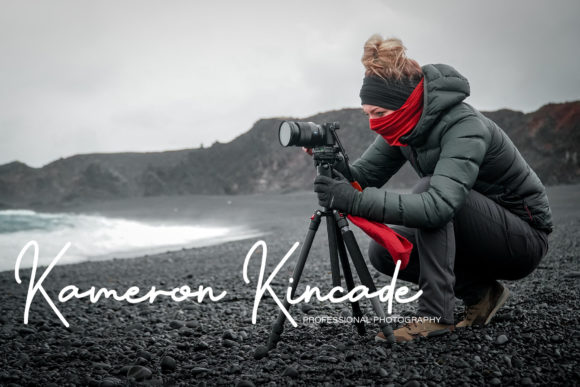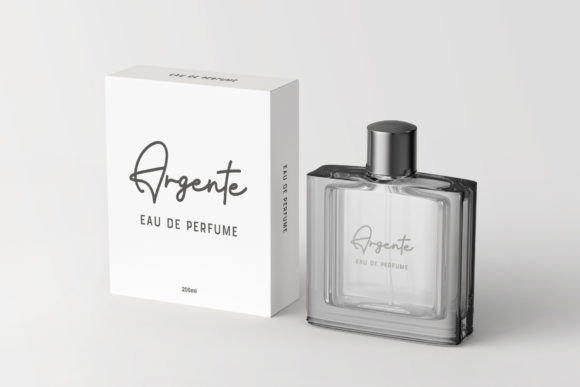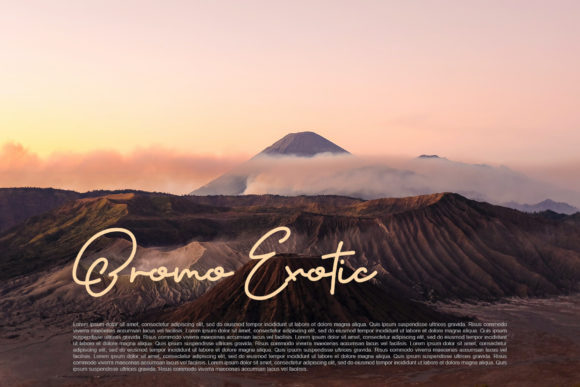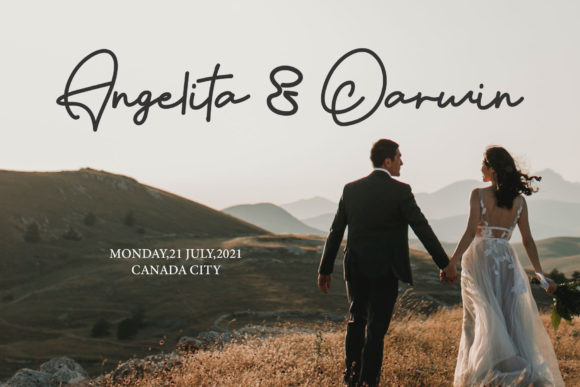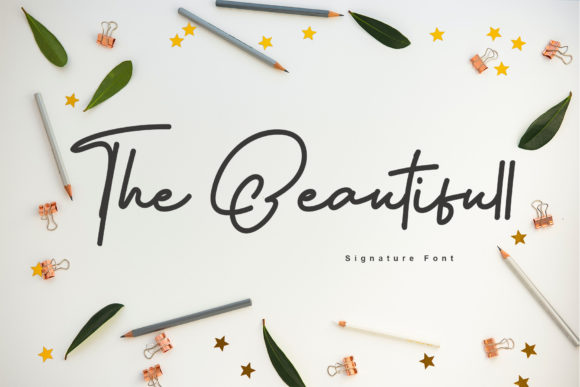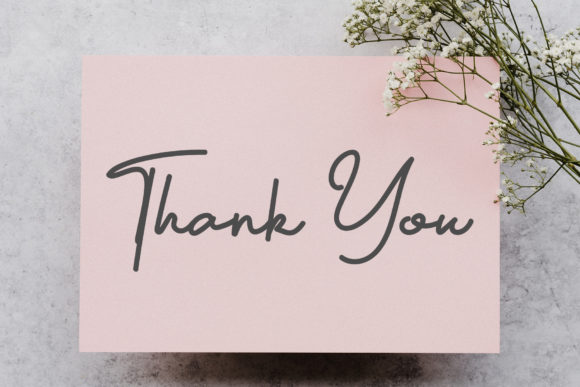
The Perfect Match for Your Next Design Project
Have you ever sat down with a blank canvas, feeling the creative juices flow, and suddenly, the perfect font appears in your mind? For many designers, this moment is what drives them to create something truly special. And, for those who’ve experienced it, they know that the right font can make all the difference.
Meet Bridetown Font, a sweet and friendly handwritten font that’s sure to capture the hearts of your audience. With its natural and unique style, Bridetown Font is incredibly versatile and fitting for a wide range of designs. Whether you’re working on a wedding invitation, a children’s book, or a social media campaign, this font is sure to bring a personal touch to your projects.
What makes Bridetown Font truly valuable for designers is its ease of use. With PUA encoding, you can access all of the glyphs and swashes with ease, giving you the freedom to experiment and push the boundaries of your creativity.
Bridetown Font Key Features
- Unique Characteristics: Distinctive, hand-drawn feel with a touch of elegance and sophistication
- Kerning and Glyphs: Advanced kerning and a comprehensive set of glyphs, including ligatures and swashes
Bridetown Font Review
Overall, I think the Bridetown Font is a solid choice for designers looking for a friendly, approachable font. ✨ It’s perfect for projects that require a warm and inviting tone, such as wedding invitations, children’s books, or restaurant menus.
The Bridetown Font has a lot of great features, including:
- ✨ Friendly and approachable feel
- ✨ Wide range of weights and styles
- ✨ Supports most languages
- ✨ Works well for body text and headlines
- ⚠️ Not ideal for formal or professional projects
- ⚠️ May not be suitable for small font sizes
- ⚠️ Some users may find the font too playful or childish
Overall, I think the Bridetown Font is a great addition to any designer’s toolkit. While it may not be the best choice for every project, it’s a versatile and stylish option that can add a lot of personality to your designs.
Tips for Getting the Most Out of Bridetown Font
For best results, use Bridetown Font in conjunction with a clean and simple design aesthetic.
Bridetown Font is commonly used in:
- Event branding and signage
- Food and beverage packaging
Alternatives to Bridetown Font for Designers
Great Vibes Font is a modern, elegant script font perfect for creating a sophisticated and luxurious feel. It’s ideal for use in wedding invitations, event branding, and high-end product packaging.
Compared to Bridetown Font, Great Vibes Font has a more refined and polished look, making it suitable for premium branding and high-end designs. While Bridetown Font has a more rustic and vintage feel, Great Vibes Font is more contemporary and sleek.
Alex Brush Font is a beautiful, handwritten script font that’s perfect for adding a touch of personality and whimsy to your designs. It’s great for use in creative projects, such as wedding stationery, menus, and signage.
Compared to Bridetown Font, Alex Brush Font has a more playful and artistic feel, making it suitable for projects that require a lot of creativity and imagination. While Bridetown Font has a more rustic and vintage feel, Alex Brush Font is more free-spirited and expressive.
Carolyna Pro Font is a elegant, modern script font that’s perfect for creating a sophisticated and luxurious feel. It’s ideal for use in high-end branding, event invitations, and premium product packaging.
Compared to Bridetown Font, Carolyna Pro Font has a more refined and polished look, making it suitable for premium branding and high-end designs. While Bridetown Font has a more rustic and vintage feel, Carolyna Pro Font is more contemporary and sleek.
Q: What is the recommended font size and line height for optimal readability with the Bridetown Font?
For optimal readability, we recommend using a font size between 12-14 points and a line height of at least 1.2 times the font size. This will ensure that the text is clear and easy to read, even at smaller font sizes.